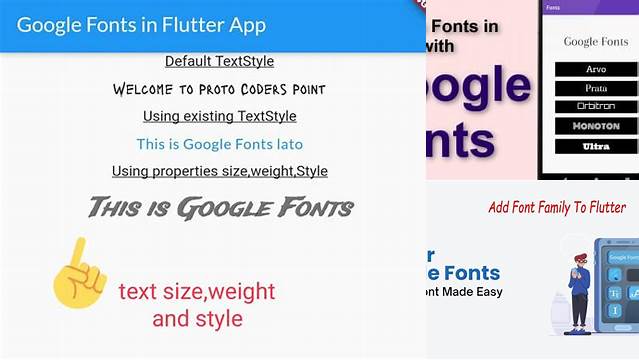
Flutter Google Fonts & Font Weight: A Complete Guide
Hey there, Flutter developers! Ever wondered how to spice up your app's typography with Google Fonts and play around with different font weights? You've come to the right place! In this comprehensive guide, we'll dive deep into the world of Flutter Google Fonts and font weights, making your app's text look stunning and professional. We'll cover everything from installation to advanced customization, ensuring you have all the tools you need to create visually appealing user interfaces.
Getting Started with Google Fonts in Flutter
Let's kick things off by understanding why Google Fonts are a game-changer for Flutter developers. Think about it: you're no longer limited to the default system fonts! Google Fonts provides a vast library of free, open-source fonts that can instantly elevate your app's design. Integrating these fonts into your Flutter project is surprisingly easy, thanks to the google_fonts package. This package simplifies the process of fetching and using Google Fonts in your Flutter applications, saving you time and effort. It's a must-have tool for any developer looking to enhance their app's typography.
Now that you have the google_fonts package installed, let's explore how to actually use Google Fonts in your Flutter app. The core of using Google Fonts lies in the GoogleFonts class provided by the package. This class offers a convenient way to apply Google Fonts to your TextStyle. For example, if you want to use the 'Roboto' font, you can simply use GoogleFonts.roboto(). This method returns a TextStyle object with the Roboto font applied. You can then merge this TextStyle with any existing TextStyle you have for your text widget, allowing you to customize other properties like font size, color, and more. This approach ensures that you can seamlessly integrate Google Fonts into your existing styling structure without having to rewrite your entire style configuration.
The flexibility of GoogleFonts doesn't stop there. You can also specify different styles, weights, and even subsets of the font. For instance, if you need the italic version of Roboto, you can use GoogleFonts.roboto(fontStyle: FontStyle.italic). Similarly, you can specify the font weight using the fontWeight property, which we'll delve into more detail later. The ability to customize these aspects of the font is what makes Google Fonts so powerful for Flutter developers. It allows you to create visually consistent and appealing text styles throughout your app, enhancing the overall user experience. The google_fonts package truly simplifies the process of managing and applying fonts in your Flutter applications, making it an indispensable tool for modern app development.
Understanding Font Weight in Flutter
Font weight is a crucial aspect of typography that defines the thickness or boldness of a font. It plays a significant role in the visual hierarchy and readability of your app's text. By understanding and manipulating font weight, you can create a clear distinction between headings, body text, and other text elements, making your app more user-friendly and visually appealing. Think of font weight as the tool that allows you to emphasize important information and guide the user's eye through your content. Different font weights can evoke different emotions and convey different levels of importance, so choosing the right font weight is essential for effective communication.
In Flutter, font weight is represented by the FontWeight class, which offers a range of predefined constants. These constants include FontWeight.w100 (Thin), FontWeight.w200 (ExtraLight), FontWeight.w300 (Light), FontWeight.w400 (Normal), FontWeight.w500 (Medium), FontWeight.w600 (SemiBold), FontWeight.w700 (Bold), FontWeight.w800 (ExtraBold), and FontWeight.w900 (Black). Each of these constants corresponds to a specific weight value, allowing you to fine-tune the thickness of your text. Using these constants ensures consistency and clarity in your font styling, as they provide a standardized way to define font weight across your application. Understanding these values is key to effectively controlling the visual appearance of your text and creating a cohesive design.
To apply font weight in Flutter, you simply use the fontWeight property within your TextStyle. This property accepts a FontWeight constant, allowing you to specify the desired thickness for your text. For example, to make a heading bold, you can use TextStyle(fontWeight: FontWeight.bold). This straightforward approach makes it easy to integrate font weight into your styling workflow. You can also combine font weight with other text style properties, such as font size and color, to create a wide range of visual effects. Experimenting with different font weights can significantly impact the look and feel of your app, so it's worth exploring the various options available.
Font weight isn't just about making text bold; it's about creating a visual hierarchy and improving readability. Using different font weights for headings, subheadings, and body text helps the user quickly scan and understand the content. For instance, using a bold font weight for headings makes them stand out, while a normal or light font weight for body text ensures readability. This thoughtful use of font weight can significantly enhance the user experience, making your app more intuitive and engaging. Remember, the goal is to guide the user through your content and make it as easy as possible for them to find the information they need. By mastering the use of font weight, you can create a more polished and professional-looking application.
Implementing Font Weight with Google Fonts
Now, let's merge our knowledge of Google Fonts and font weight to create some truly stunning typography in our Flutter apps. The beauty of the google_fonts package is that it seamlessly integrates with Flutter's TextStyle and FontWeight system. This means you can easily apply different font weights to your Google Fonts just as you would with any other font. The process is intuitive and straightforward, allowing you to focus on the creative aspects of typography rather than the technical complexities. This integration is a significant advantage for Flutter developers, as it simplifies the process of creating visually rich and engaging text styles.
To specify font weight with Google Fonts, you simply use the fontWeight property within the GoogleFonts style method. For example, if you want to use the bold version of the Roboto font, you can use GoogleFonts.roboto(fontWeight: FontWeight.bold). This will return a TextStyle object with the Roboto font applied and the font weight set to bold. You can then use this TextStyle in your Text widget to display the text with the desired style. This method is both efficient and readable, making it easy to manage font weights throughout your application. The ability to specify font weight directly within the GoogleFonts method is a testament to the package's thoughtful design and user-friendly interface.
But what if you want to use a font weight that isn't directly available as a constant in FontWeight, such as a semi-bold weight? No problem! The FontWeight class also accepts numeric values ranging from 100 to 900, allowing you to specify more granular font weights. For example, to use a semi-bold font weight, you can use FontWeight.w600 or simply FontWeight(600). This flexibility is crucial for achieving the precise typographic effect you desire. It allows you to fine-tune the boldness of your text to match your design vision perfectly. The numeric representation of font weight provides an additional layer of control, ensuring that you can create exactly the text style you need.
Let's look at a practical example. Suppose you want to create a heading with the Montserrat font in bold and a subheading with the same font but in semi-bold. You can achieve this by using the following code snippets:
Text(
'This is a Heading',
style: GoogleFonts.montserrat(
fontWeight: FontWeight.bold,
),
Text(
'This is a Subheading',
style: GoogleFonts.montserrat(
fontWeight: FontWeight.w600,
),
This example demonstrates how easily you can apply different font weights to different text elements using Google Fonts. By leveraging the fontWeight property, you can create a clear visual hierarchy and enhance the readability of your app. This simple yet powerful technique is essential for creating a professional and engaging user interface. Remember, typography is a key element of design, and the ability to control font weight with Google Fonts is a valuable tool in your Flutter development arsenal.
Advanced Font Weight Customization
Alright, let's crank things up a notch and explore some advanced font weight customization techniques! While the predefined FontWeight constants and numeric values are incredibly useful, there are situations where you might want even more control over your font styles. Perhaps you want to create a subtle visual effect by animating the font weight, or maybe you need to dynamically adjust the font weight based on user interaction. These advanced scenarios require a deeper understanding of how font weight works in Flutter and how you can manipulate it programmatically.
One powerful technique is to use Flutter's animation capabilities to animate the font weight. Imagine creating a button that subtly changes its text weight when hovered over, or a heading that gradually becomes bolder as the user scrolls down the page. These kinds of effects can add a touch of sophistication and interactivity to your app. To achieve this, you can use an AnimatedDefaultTextStyle widget in combination with an AnimationController. The AnimatedDefaultTextStyle widget smoothly transitions between different text styles, including font weight, over a specified duration. This allows you to create visually appealing animations that enhance the user experience. Animating font weight can be a subtle yet effective way to draw attention to specific elements or provide visual feedback to the user.
Another advanced technique is to dynamically adjust font weight based on data or user input. For example, you might want to display a number in bold if it exceeds a certain threshold, or change the font weight of a list item when it's selected. This kind of dynamic styling can make your app more responsive and intuitive. To implement this, you can use conditional logic within your TextStyle to set the font weight based on certain conditions. For instance, you can use an if statement to check a variable's value and then set the fontWeight property accordingly. This allows you to create text styles that adapt to changing data or user interactions, making your app feel more dynamic and engaging. Dynamic font weight adjustment is a powerful tool for creating responsive and data-driven user interfaces.
Furthermore, you can create custom font weight styles by combining font weight with other text style properties like font size, color, and letter spacing. This allows you to create unique and consistent typographic styles throughout your app. For example, you might define a specific style for headings that includes a bold font weight, a larger font size, and a specific color. By encapsulating these styles in reusable variables or methods, you can ensure consistency and maintainability across your codebase. This approach is particularly useful for larger projects with complex design requirements. Creating custom font weight styles is a best practice for maintaining a consistent and professional look and feel throughout your application.
In conclusion, advanced font weight customization in Flutter opens up a world of possibilities for creating visually stunning and interactive user interfaces. By leveraging animation, dynamic adjustments, and custom styles, you can take your app's typography to the next level. Don't be afraid to experiment with these techniques and discover new ways to enhance your app's design. The key is to understand the power of font weight and how it can be used to communicate effectively and engage your users.
Best Practices for Using Font Weight
Let's wrap things up by discussing some best practices for using font weight in your Flutter apps. While font weight is a powerful tool for enhancing typography, it's important to use it judiciously and strategically. Overusing bold text or creating too many variations in font weight can actually detract from readability and create a cluttered visual experience. The goal is to use font weight to guide the user's eye, create a clear visual hierarchy, and improve the overall readability of your app. Following these best practices will help you create a more polished and professional-looking application.
One of the most important best practices is to establish a clear visual hierarchy using font weight. This means using different font weights to distinguish between headings, subheadings, body text, and other text elements. For example, using a bold font weight for headings makes them stand out, while using a normal or light font weight for body text ensures readability. This creates a clear visual distinction between different sections of content, making it easier for the user to scan and understand the information. A well-defined visual hierarchy is essential for creating a user-friendly and engaging interface.
Another key best practice is to use font weight consistently throughout your app. This means choosing a limited set of font weights and sticking to them. Avoid using too many different font weights, as this can create a sense of visual chaos and make your app look unprofessional. A consistent use of font weight creates a cohesive and harmonious design, enhancing the overall user experience. Consistency is key to creating a polished and professional look.
It's also important to consider the context in which you're using font weight. For example, using a bold font weight for a small amount of text can make it stand out, but using it for large blocks of text can make it difficult to read. Similarly, using a light font weight for important information can make it easily overlooked. Always consider the size, color, and placement of your text when choosing a font weight. The context in which you use font weight can significantly impact its effectiveness.
Finally, don't be afraid to experiment with different font weights to find what works best for your app. Typography is a crucial element of design, and it's worth taking the time to explore different options. Try different combinations of font weights, font sizes, and colors to see what creates the most visually appealing and readable text. Experimentation is key to mastering typography and creating a unique and engaging design. By experimenting with different font weight combinations, you can discover new ways to enhance your app's design and create a truly unique user experience.
By following these best practices, you can effectively use font weight to enhance the typography of your Flutter apps. Remember, the goal is to create a clear visual hierarchy, use font weight consistently, consider the context, and experiment with different options. With a little practice, you'll be able to use font weight to create stunning and engaging text styles that elevate your app's design.
So, there you have it! We've covered everything from getting started with Google Fonts in Flutter to advanced font weight customization techniques. You now have the knowledge and tools to create beautiful and effective typography in your apps. Remember, typography is a crucial element of design, and mastering font weight is a key step in creating a professional and engaging user experience. Don't be afraid to experiment with different font weights and Google Fonts to discover your own unique style. With practice and creativity, you can create text styles that not only look great but also enhance the overall usability of your app. Happy coding, guys!